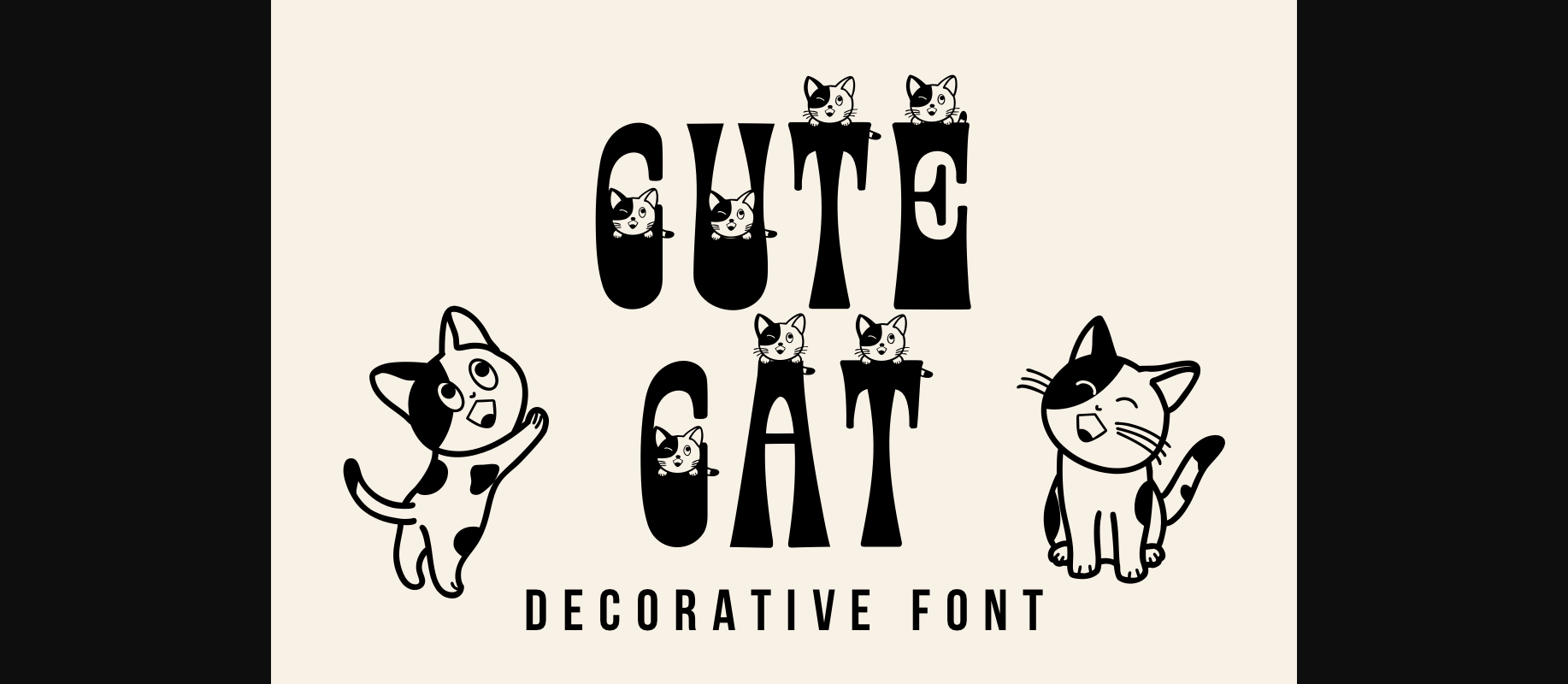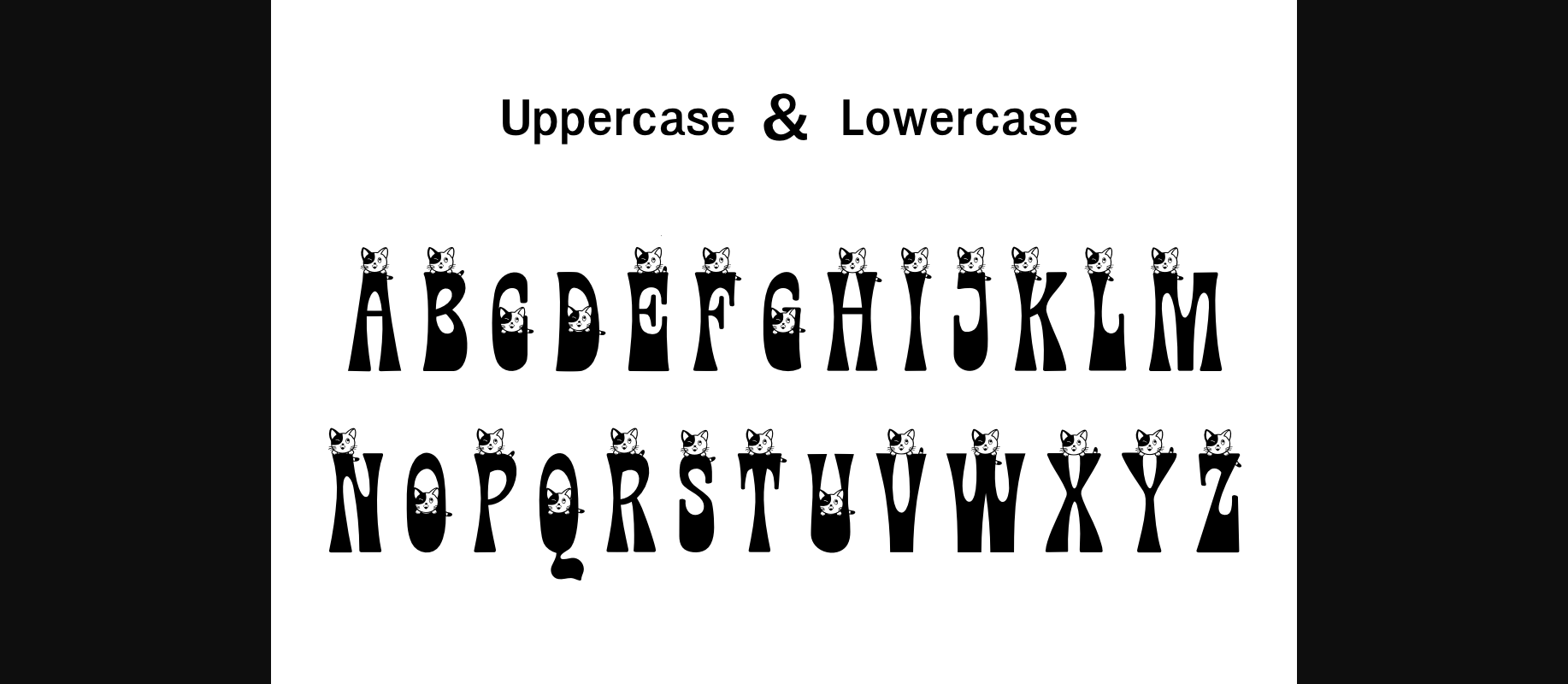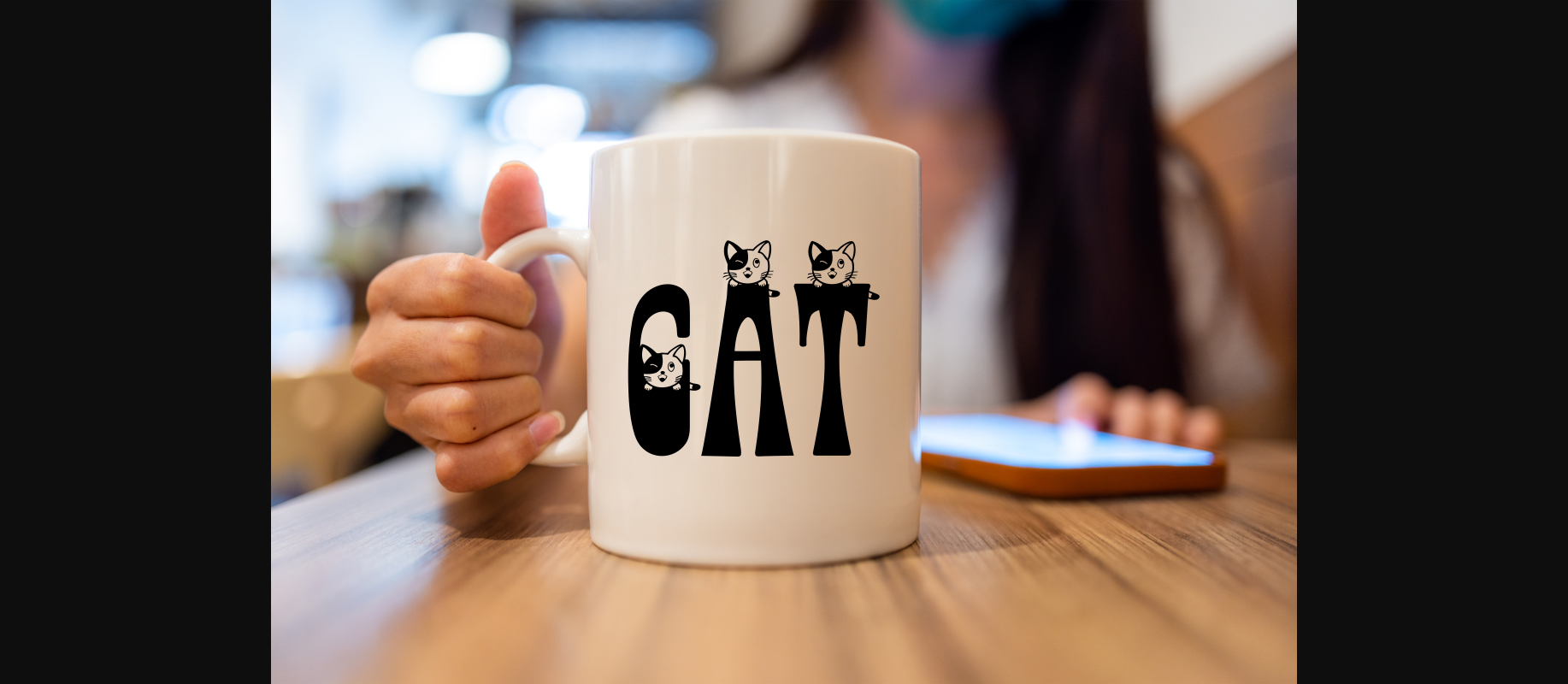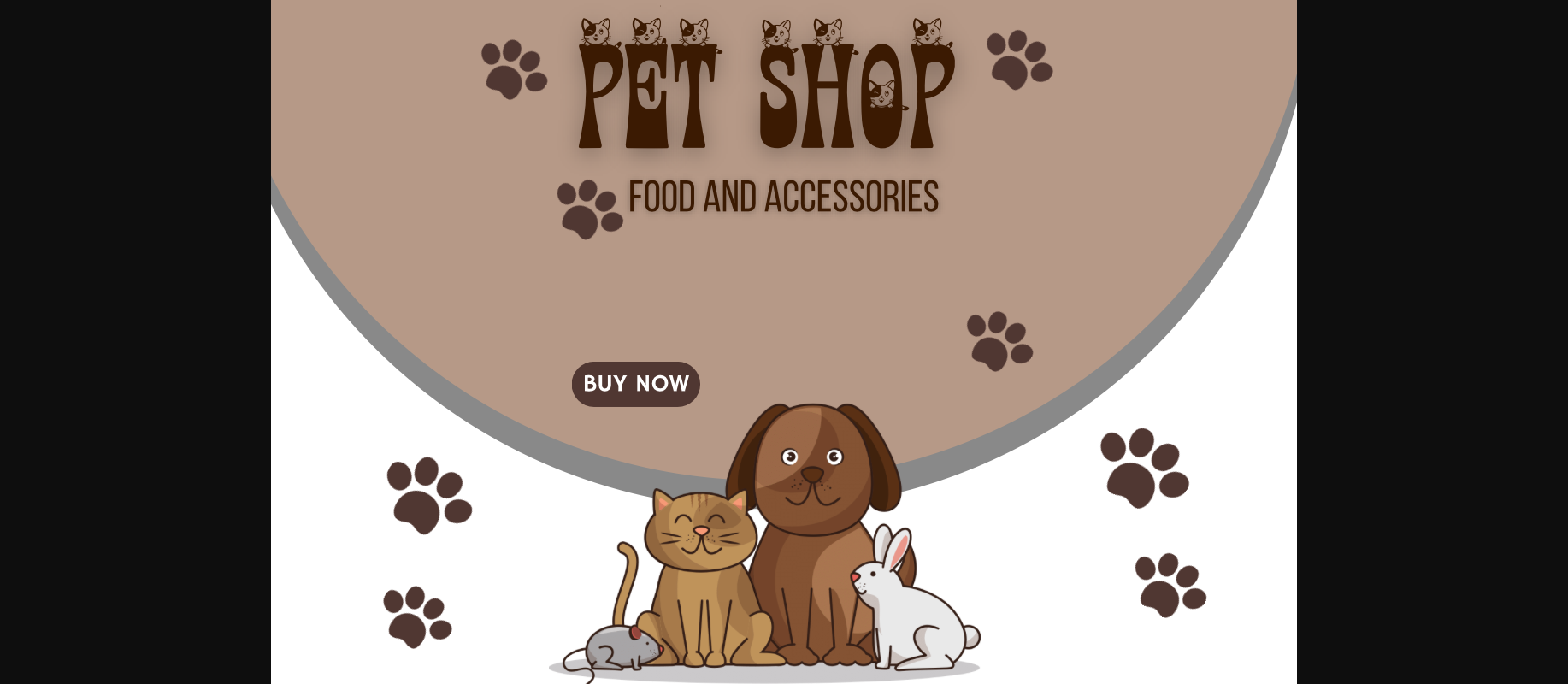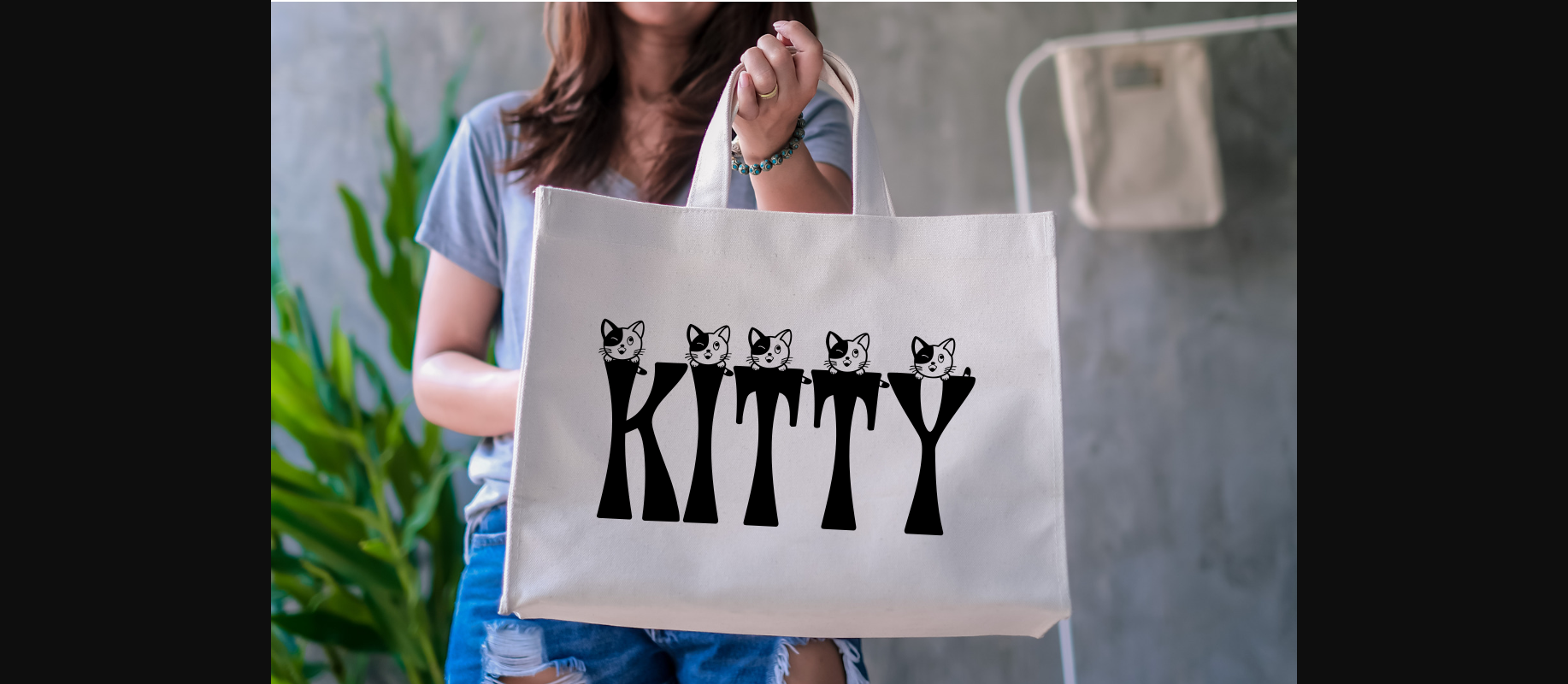
Cute Cat Font
About Cute Cat Font
Cute Cat is a decorative font with a feline element. You can use it for taking notes, writing a diary, or making greeting cards. However, you can still use it for other designs, such as banners, content, mugs, cards, shirts, stationery, social media posts, and more!